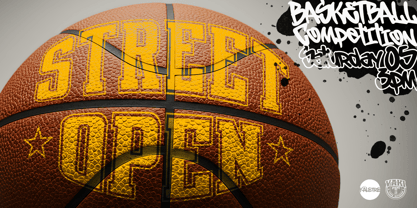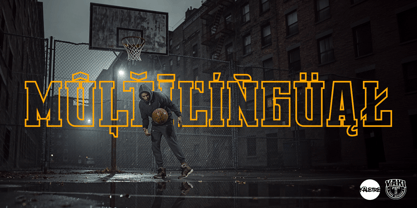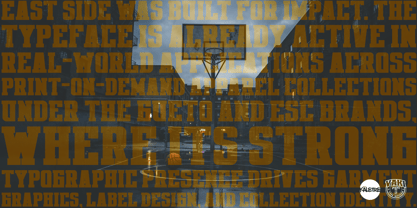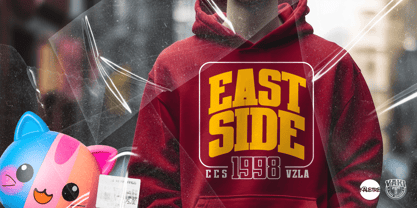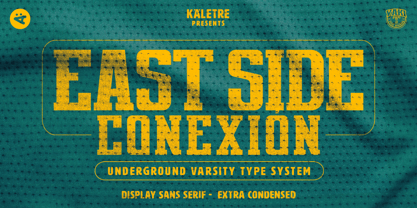
East Side Conexion
Released by KÄLETRE, EAST SIDE CONEXIÓN is a bold display typeface rooted in the visual language of urban culture, street lettering, and the underground academic aesthetic of varsity and block lettering traditions. Designed as part of the GUETO Underground Varsity Type System, it carries the tension between institutional structure and street identity, precise yet raw, disciplined yet expressive.
EAST SIDE was built for impact. The typeface is already active in real-world applications across print-on-demand apparel collections under the GUETO and ESC brands, where its strong typographic presence drives garment graphics, label design, and collection identity. Beyond apparel, it performs at its best in headlines, editorial display, posters, album covers, sports branding, streetwear graphics, and any context where typographic weight and attitude are non-negotiable.
The family ships in multiple stylistic variants, each sharing the same structural DNA while offering distinct visual weight and finish. From solid authority to graphic tension, every style is designed to work independently or in combination within the same composition. EAST SIDE CONEXIÓN brings this distinctive display character to a global range of creative projects without compromise.